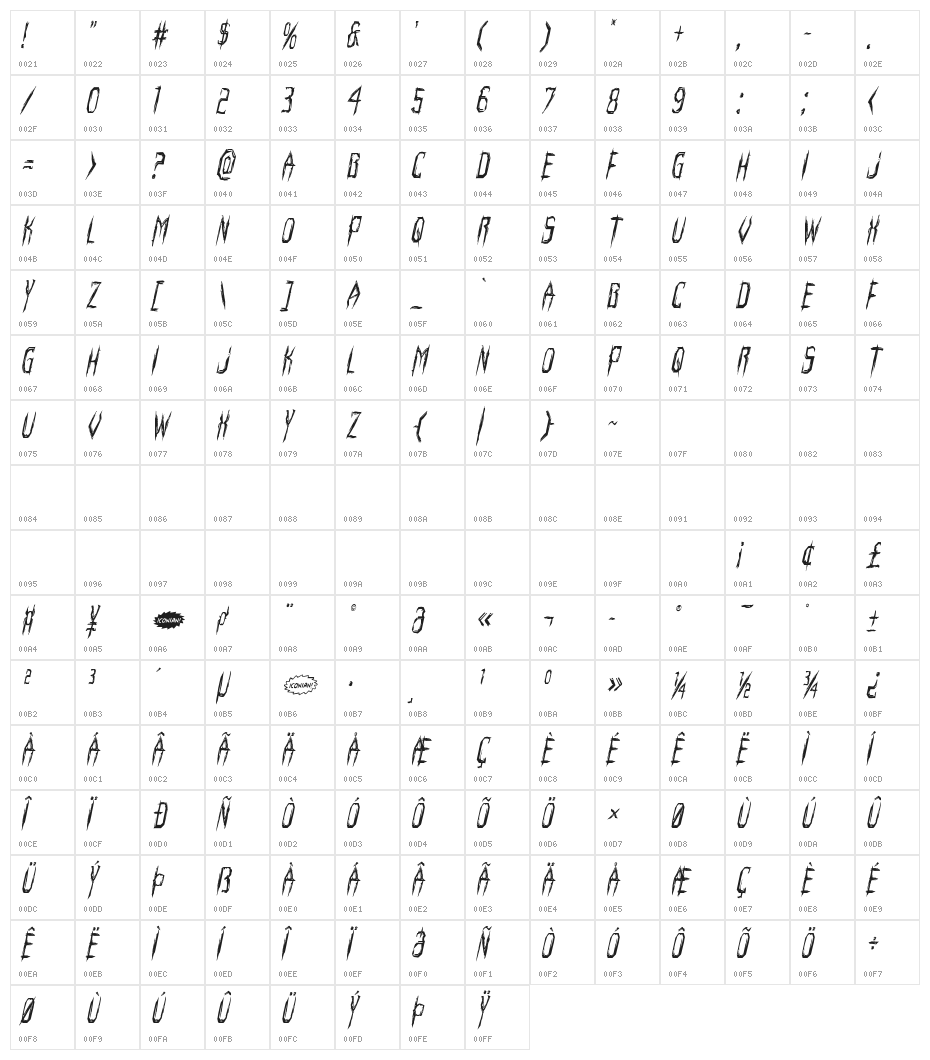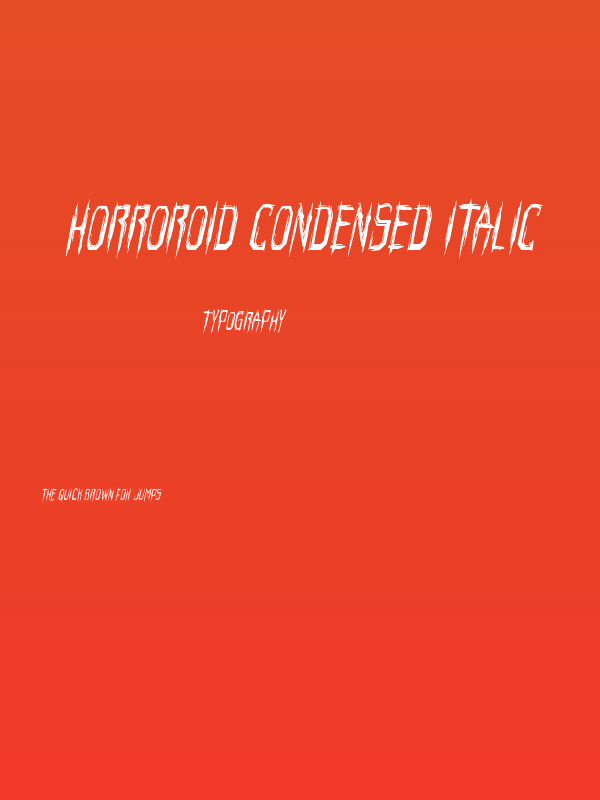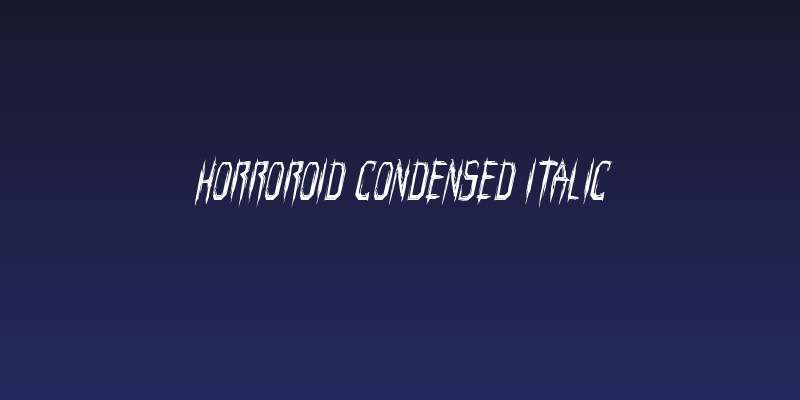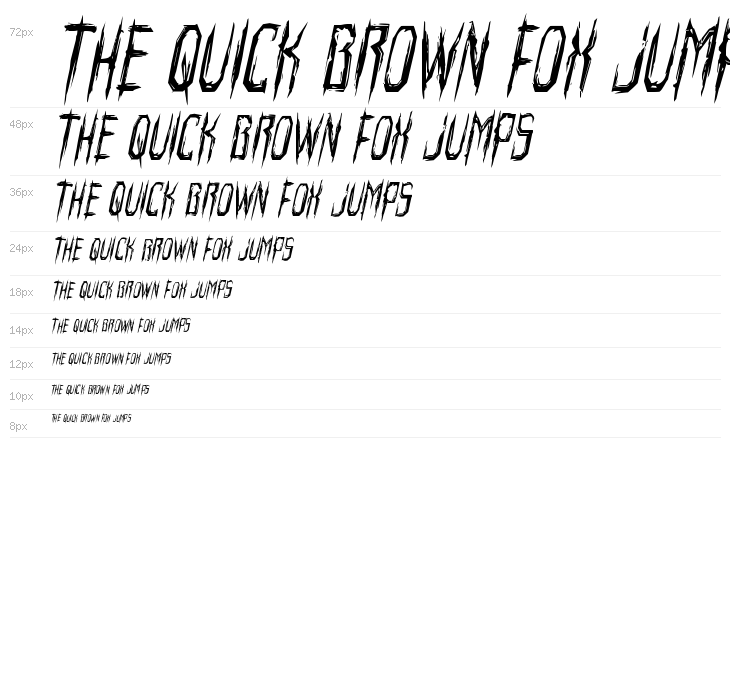
Horroroid Condensed Italic Font
Horroroid Condensed Italic Description
This font features a jagged, distressed appearance that evokes a sense of horror and unease. The characters are sharply angled and elongated, giving them a menacing, claw-like look. The strokes are irregular, with a rough texture that enhances the eerie aesthetic. The condensed nature of the font allows for tight spacing, making it ideal for creating impactful, attention-grabbing designs. The italic slant adds a dynamic, unsettling motion to the text, further amplifying its dramatic effect. This font is perfect for projects that require a spooky or intense atmosphere, such as horror movie posters, Halloween-themed graphics, or any design that aims to evoke fear and suspense.
| Proposed Projects | Horror movie posters, Halloween graphics, spooky event invitations, eerie book covers. |